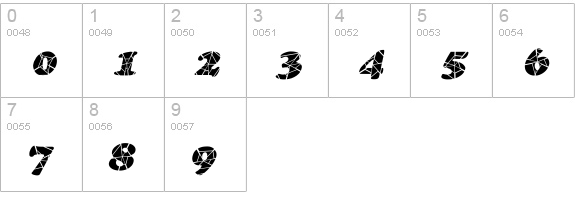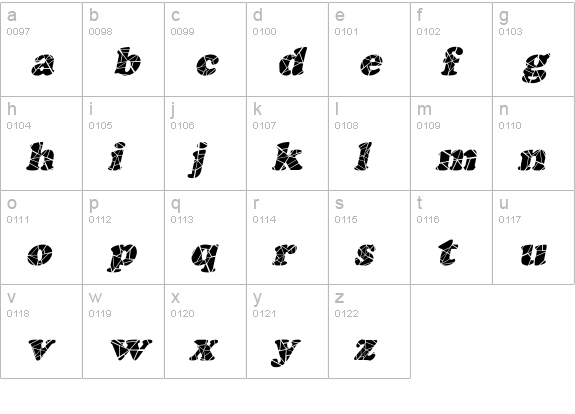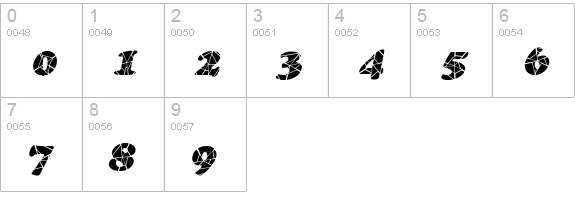
Marshmallow Cracked Italic is a distinctive, italic variant in the Marshmallow typeface family \xE2\x80\x94 well suited to design and typography projects.
Introducing Marshmallow Cracked Italic font, a captivating typeface that effortlessly blends modernity with a hint of whimsy. This unique font is perfect for adding a touch of elegance and charm to any creative project. With its cracked texture and stylish italic design, Marshmallow Cracked Italic is sure to make a lasting impression. One of the most remarkable aspects of this font is that it is freely available to download at FontsMarket.com. This means that designers, artists, and typography enthusiasts alike can easily access this stunning font without any cost. Whether you're working on a personal project, designing a logo, or creating eye-catching visuals for your business, Marshmallow Cracked Italic font offers endless possibilities. The alluring curves and playful strokes of this font give it a distinctive personality that is both contemporary and versatile. Its cracked texture adds a touch of rustic charm, giving your designs a unique and captivating look. Marshmallow Cracked Italic font is perfect for a variety of applications, from branding and packaging design to social media graphics and website headers. With its easy-to-read letterforms and flawless readability, Marshmallow Cracked Italic font ensures that your message is conveyed effortlessly. Its carefully crafted design guarantees a seamless blending of characters, resulting in a harmonious flow of text that captures attention and engages readers. Whether you're looking to add a touch of elegance to your wedding invitations or create eye-catching headlines for your blog, Marshmallow Cracked Italic font is the perfect choice. Its versatility and striking aesthetics make it suitable for a wide range of design projects. So why wait? Take advantage of the opportunity to enhance your creative endeavors with Marshmallow Cracked Italic font, freely available to download at FontsMarket.com. Unleash your creativity and make a bold statement with this enchanting typeface. Download it today and let your designs flourish with its distinctive charm and timeless appeal.